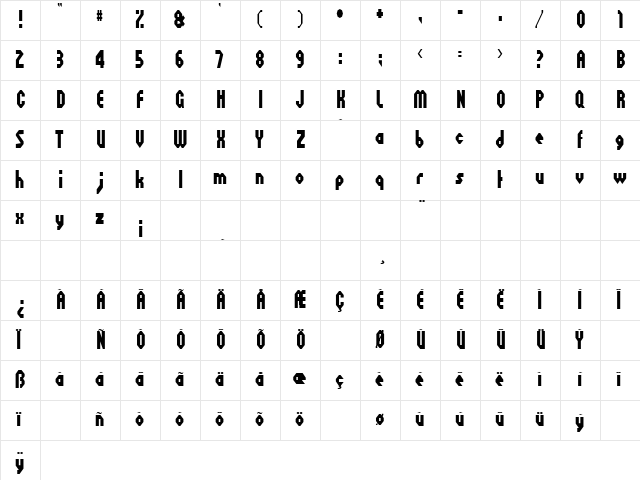
Octoville Regular Font Preview
Octoville Regular
Octoville Regular Font Details
Design Context for Octoville Typeface
Octoville takes a measured approach to typography — its balanced proportions and neutral character make it a reliable workhorse for both digital and print work.